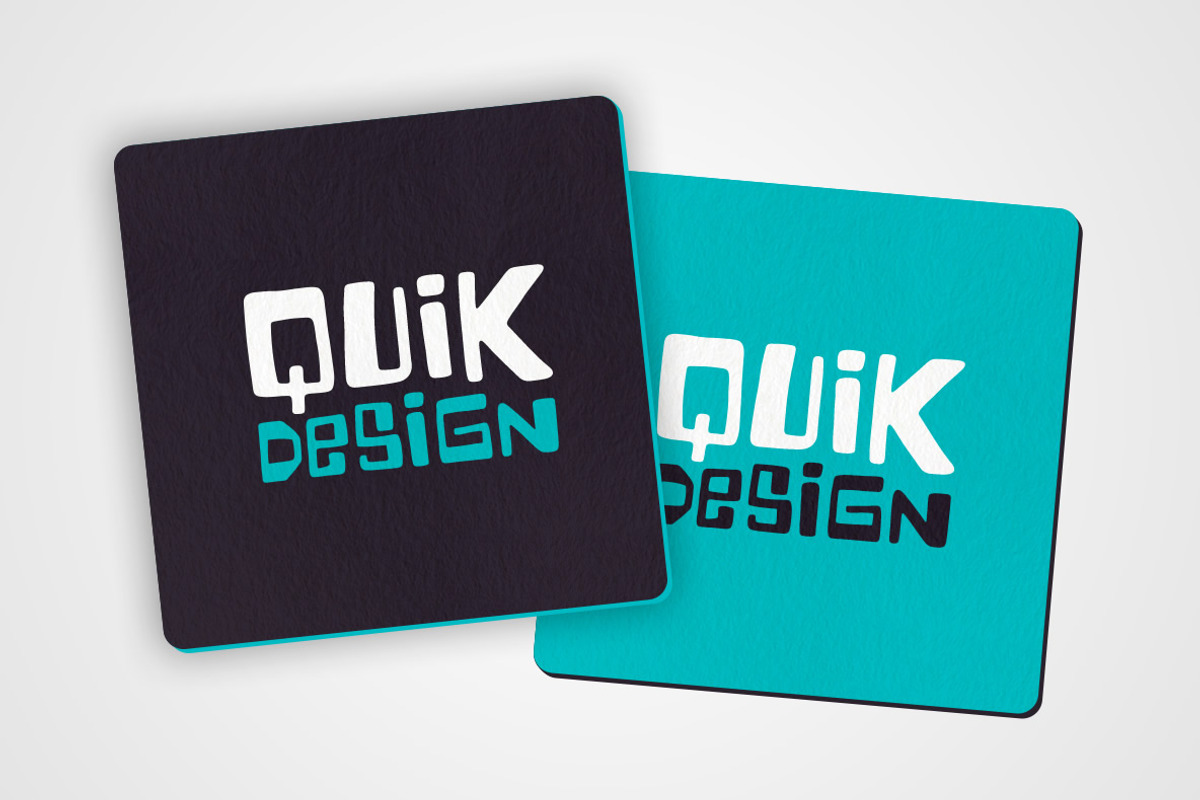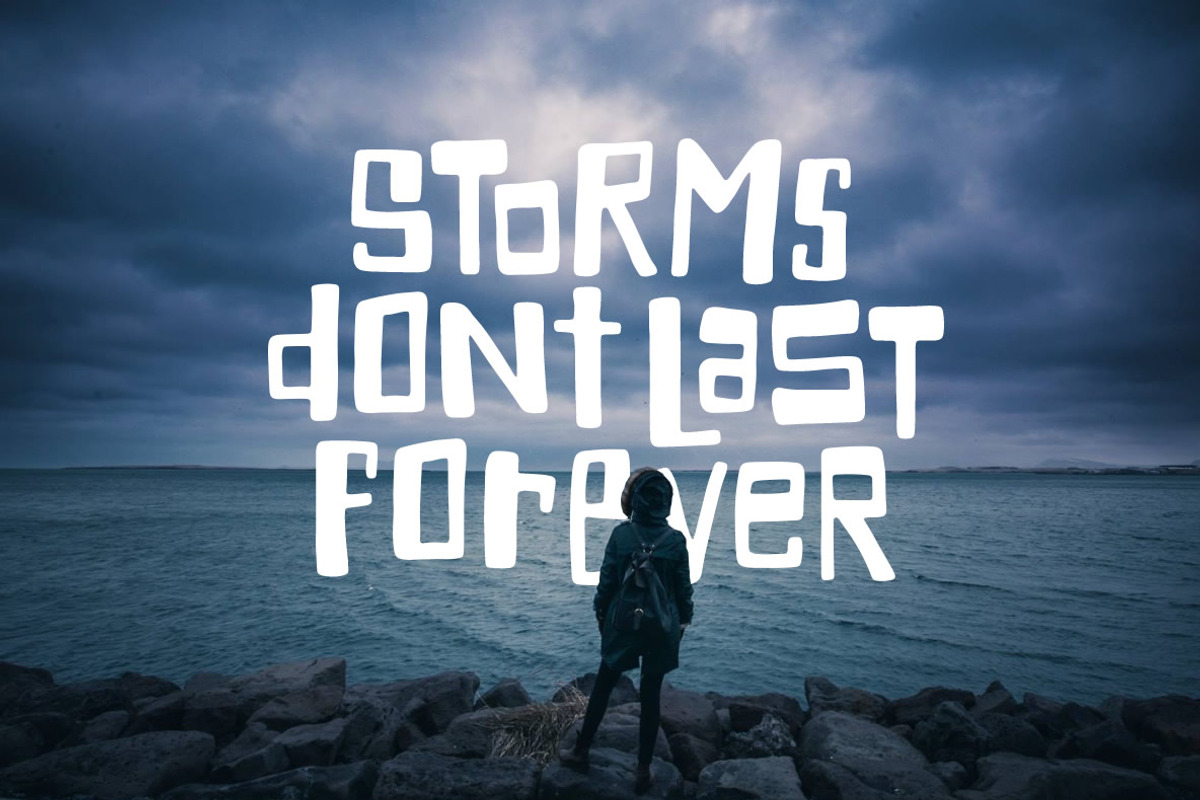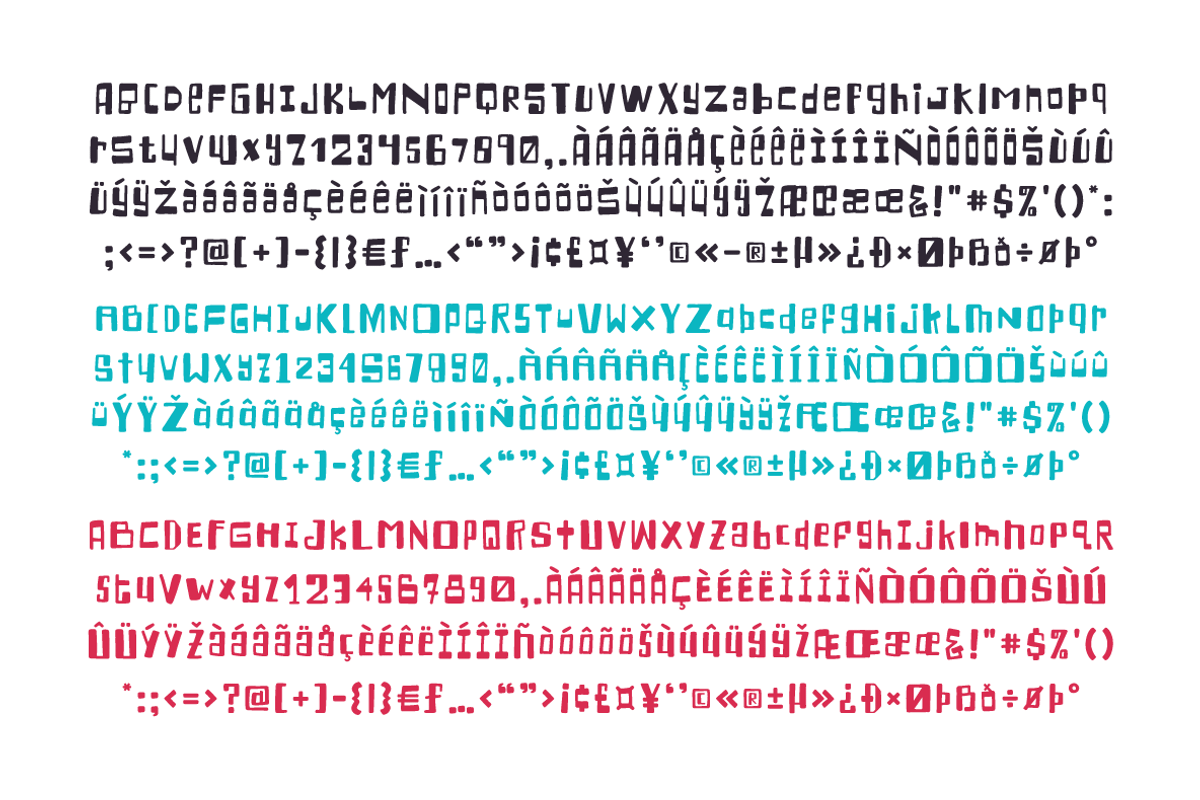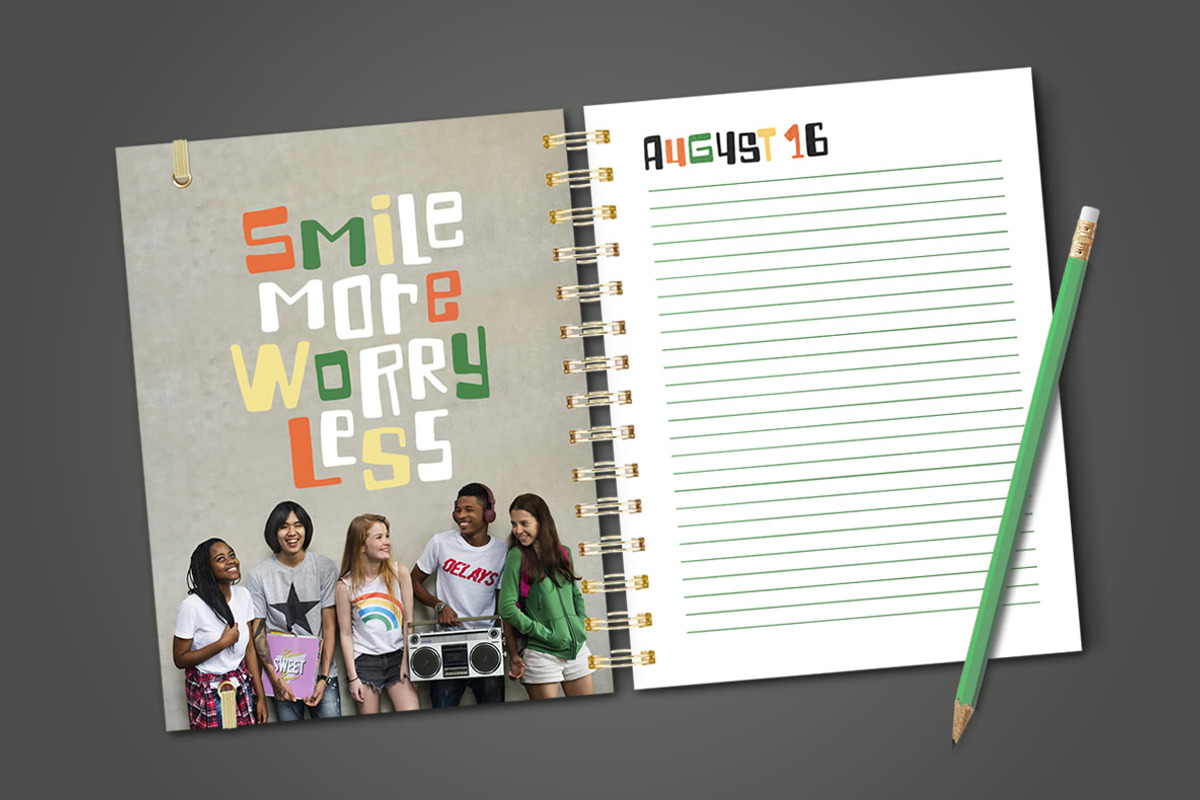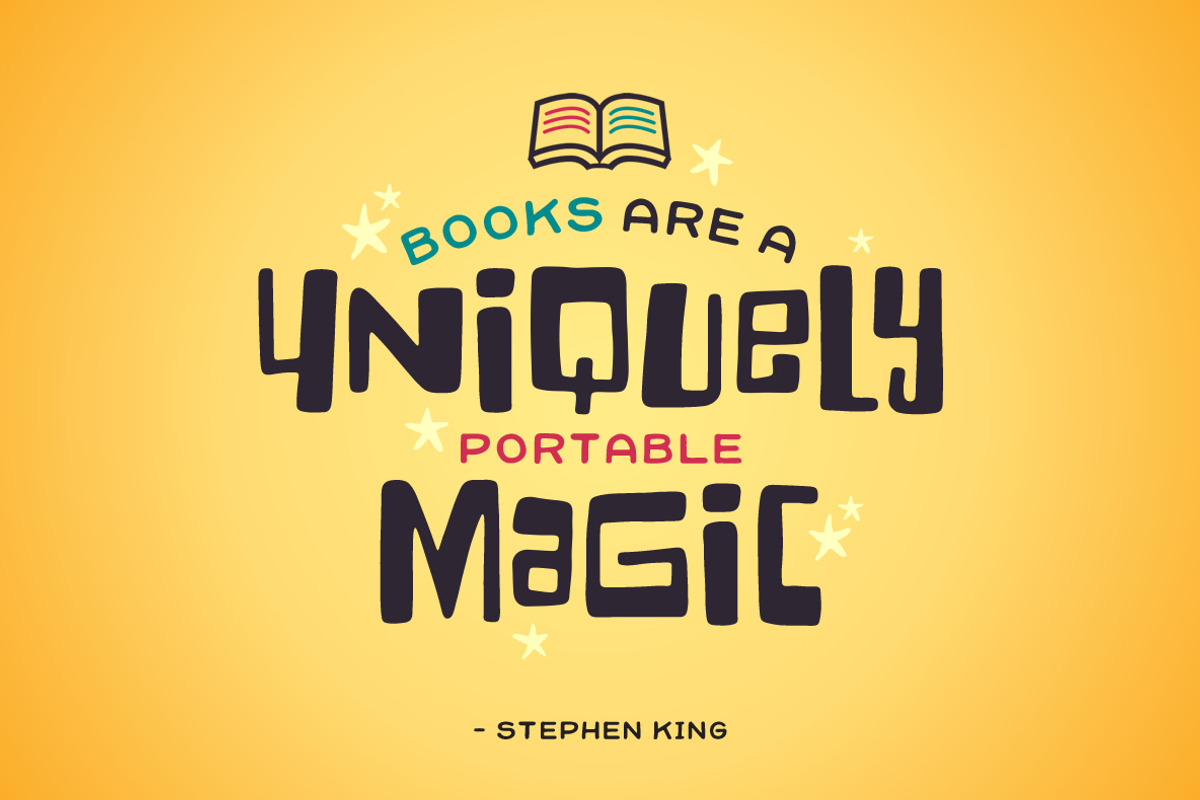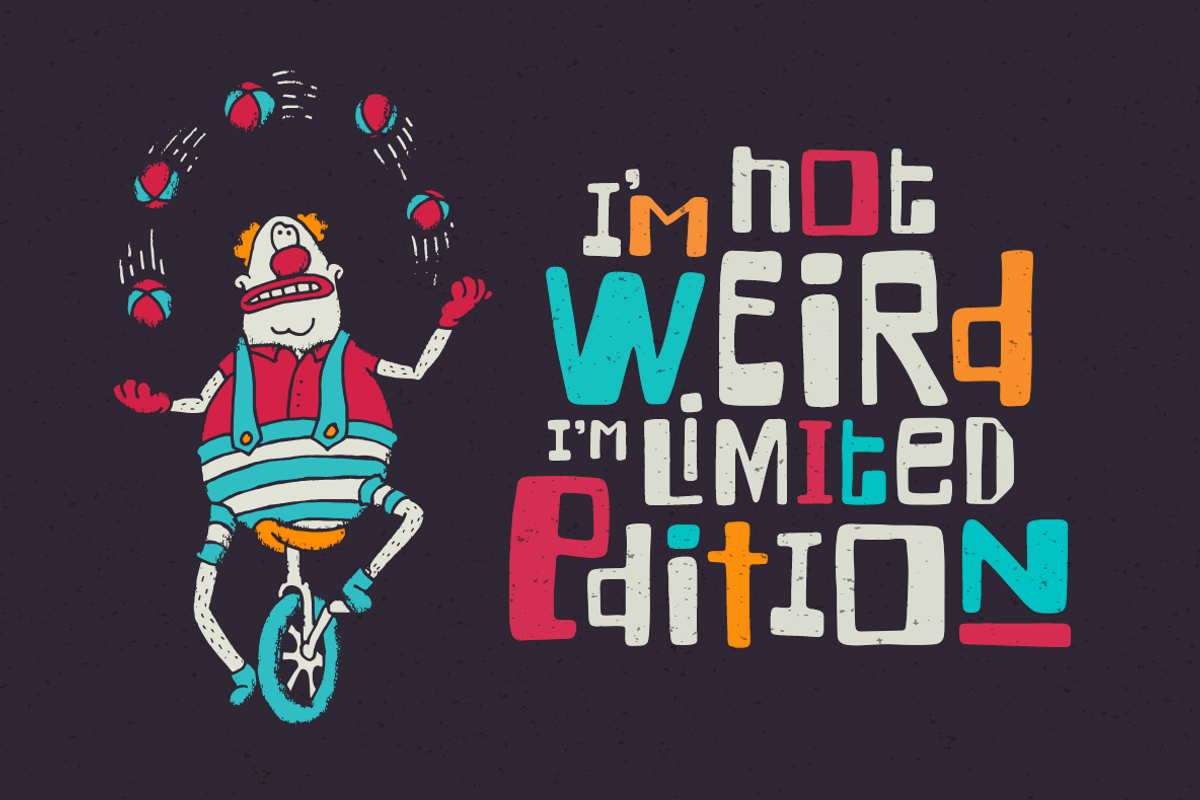
Crackalackin Font Set
Crackalackin is a unique and quirky font set. There are 6 variations of each letter so you can mix and match until you find the perfect fit. It's great for big bold headlines, typographic posters, logos, and so much more!